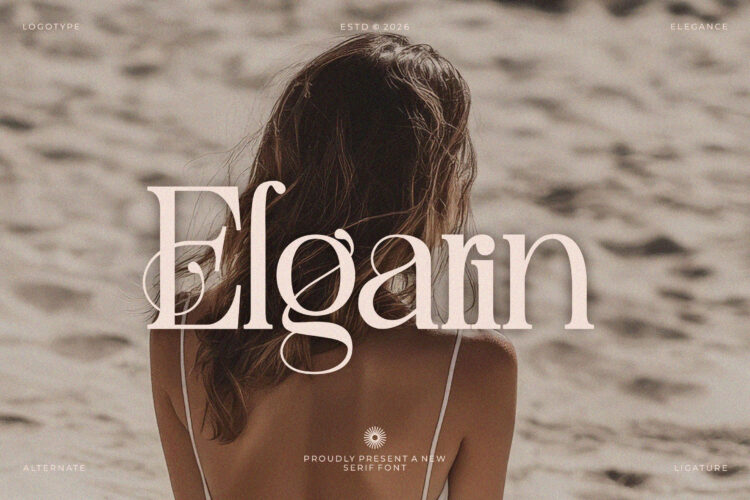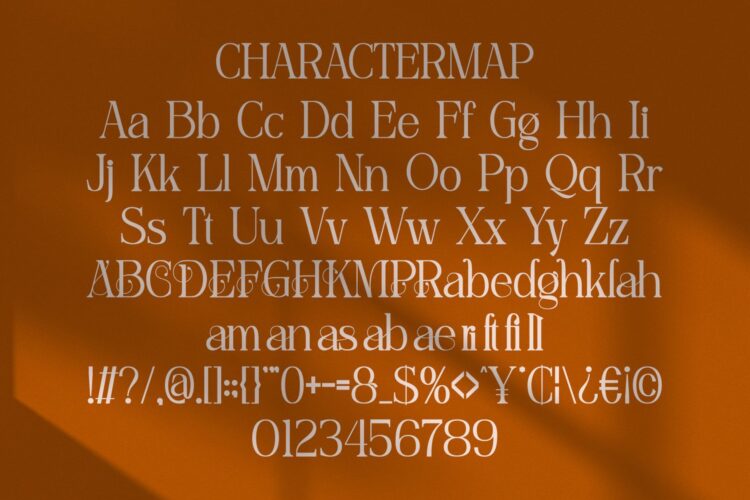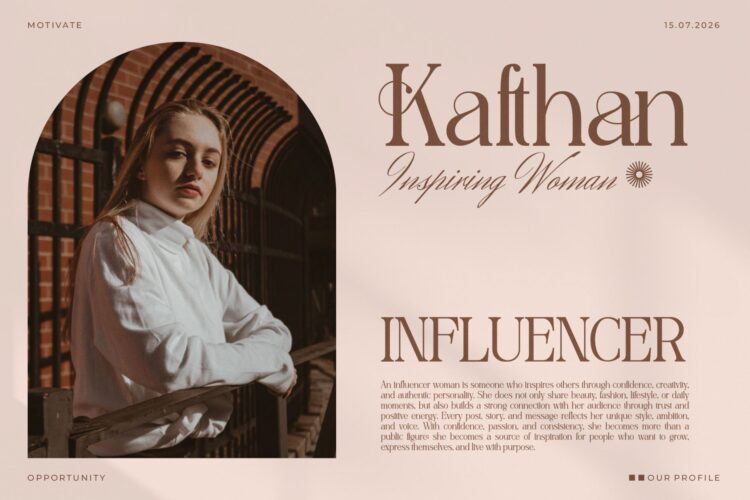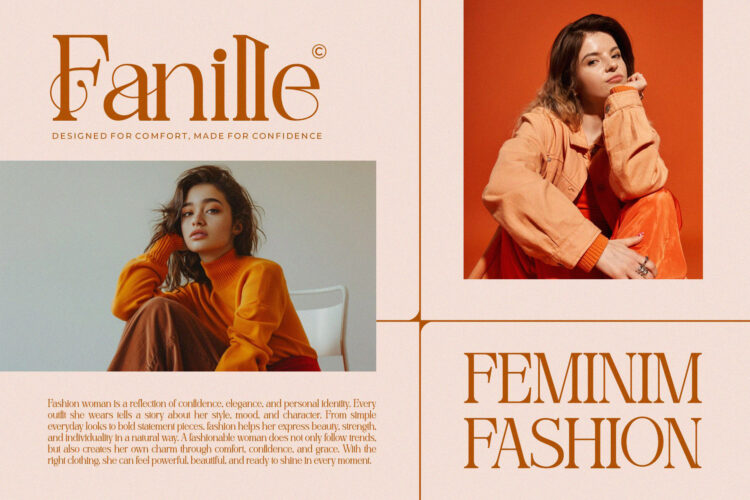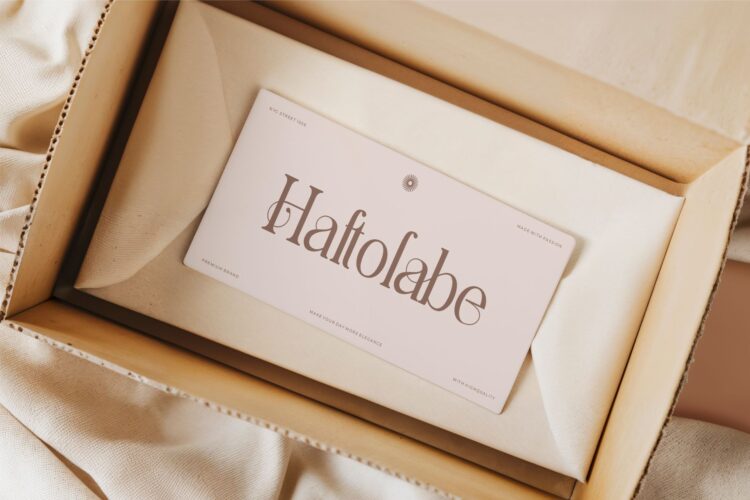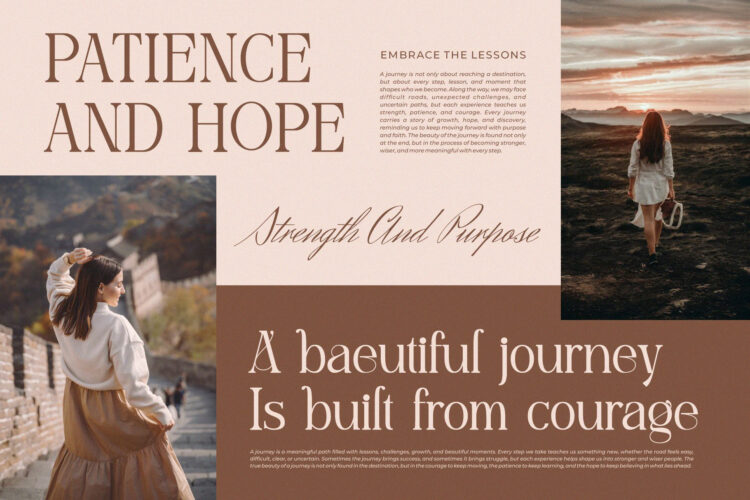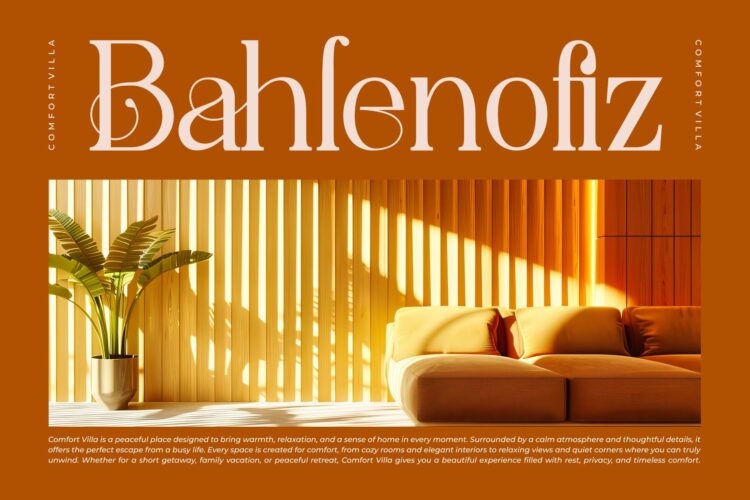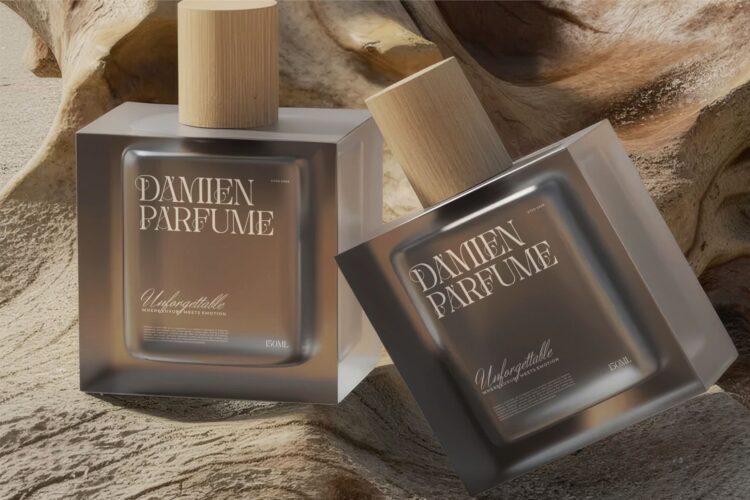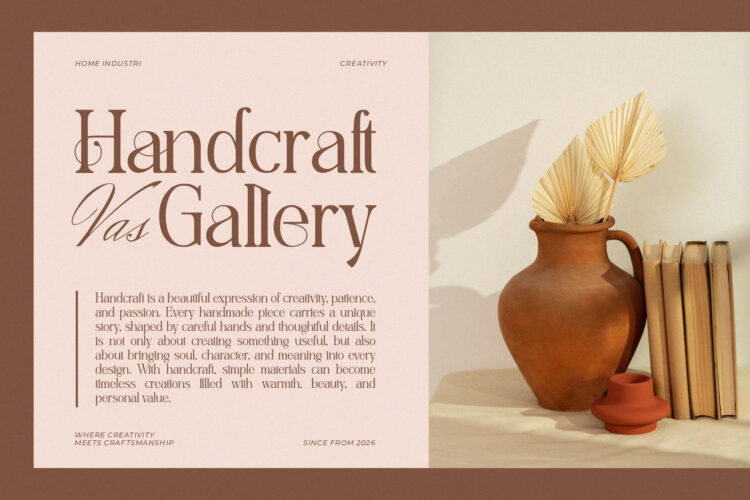
Elgarin
Elgarin is a cinematic luxury font designed to bring elegance and sophistication to your high-end design projects. Inspired by the timeless beauty of classic cinema, Elgarin combines modern aesthetics with a touch of vintage glamour. Ideal for creating stunning logos and refined branding materials, this font is perfect for designers who want to make a bold statement with their work..
Elgarin || Cinematic Luxury Serif Font